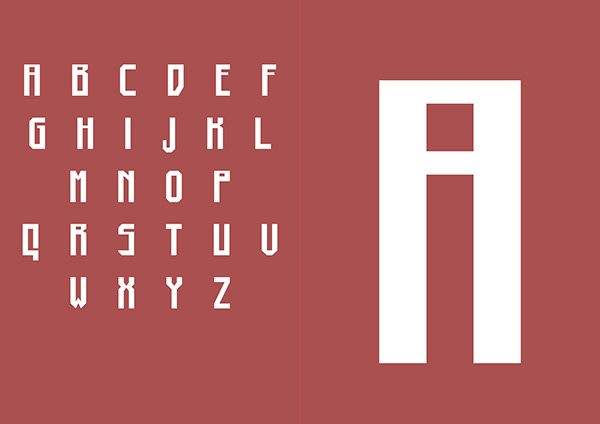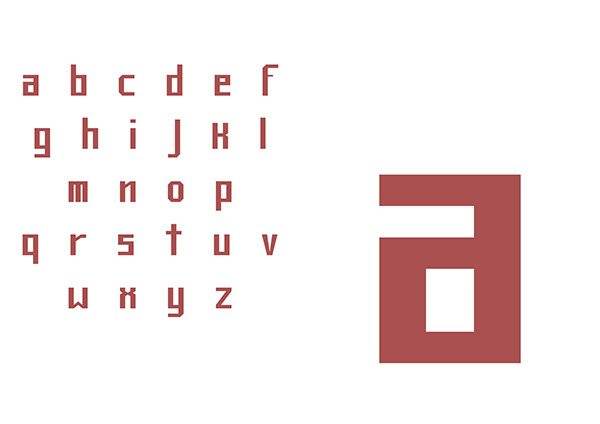
The font is a geometric sans-serif. This typeface based on upper case letters, but I create lower case letters, numbers and glyphs. Designed by Matteo Proietti.